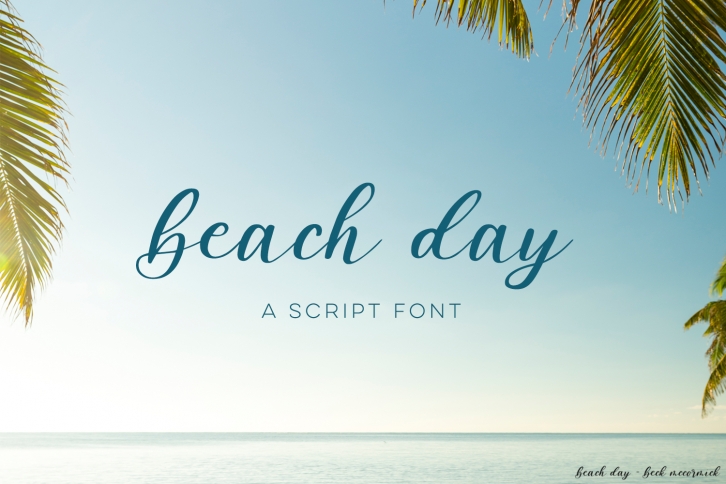
Beach DayScript is a beautiful font that was designed by BeckMcCormick. It's a great choice for designers and creatives who need such a font. It was released on June 24, 2019 and the file size is 7.59 MB. Beach DayScript may give a more youthful, expressive and casual look to your project. It is a very beautiful, refined, elegant, and high-quality font.